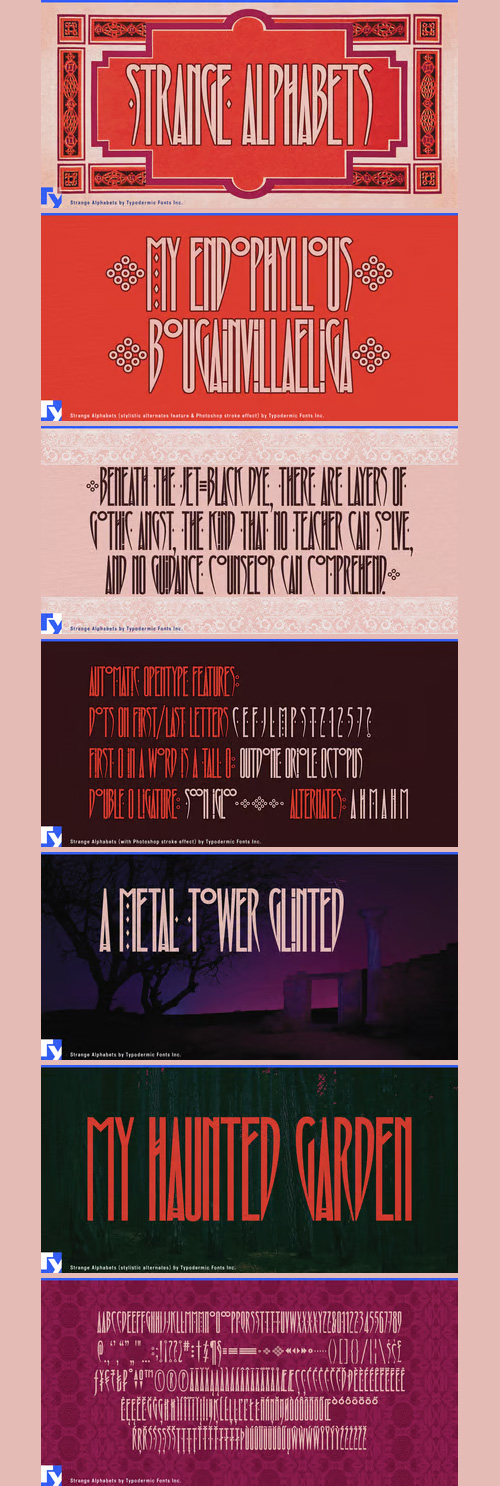
- Strange Alphabets is a narrow Arts & Crafts display font inspired by late 1800’s book covers and an early 1980’s variation of the Siouxsie & the Banshees band logo. Strange Alphabets includes copious punctuation and symbols. It’s loaded with fractions, numeric ordinals and operators because everyone needs mathematics; including goths.?? In OpenType savvy applications, the first and last letter of a word will receive a small diamond ornament. If a word starts with M, the single diamond splits into three. Words starting with O will automatically use a tall O. If you’d like to force a tall O in the middle of the word, use a zero. Words that start with a double O such as Oolong, will receive a pair of tall O’s. A pair of O’s in the middle or at the end of a word will be replaced by a linked ring ligature.??If your application allows you to access OpenType stylistic alternates, you can change the A and H cross-bars into small rings and remove all the diamonds from the M. The hyphen, en dash and em dash are replaced with ring ornaments. A separate diamond ornament is included under Unicode 25C6. If you want to disable the automatic OpenType substitutions, turn off your application’s standard ligatures feature.